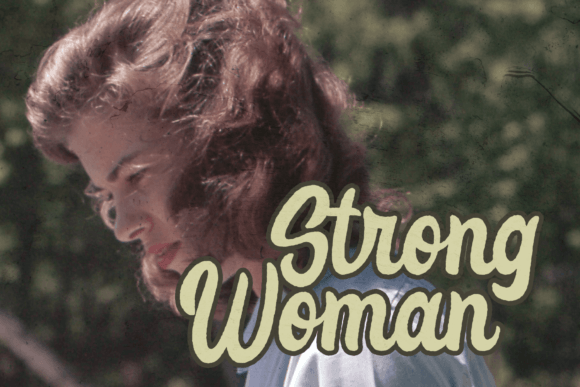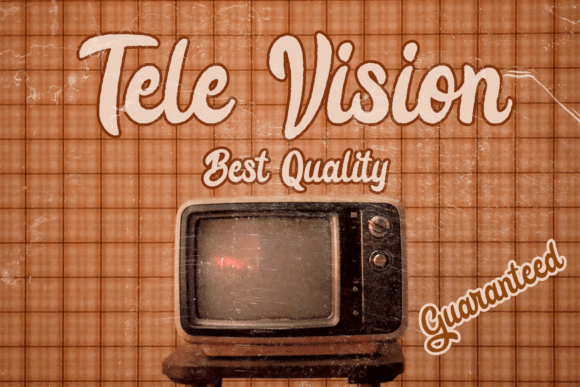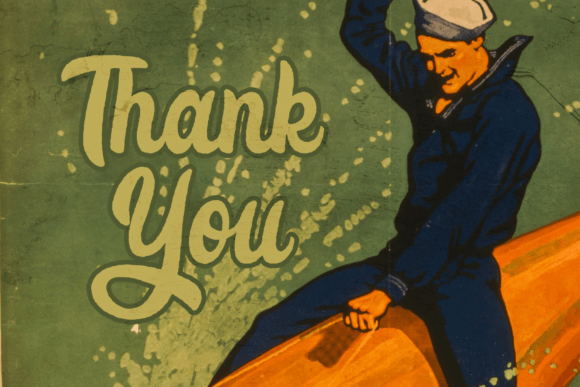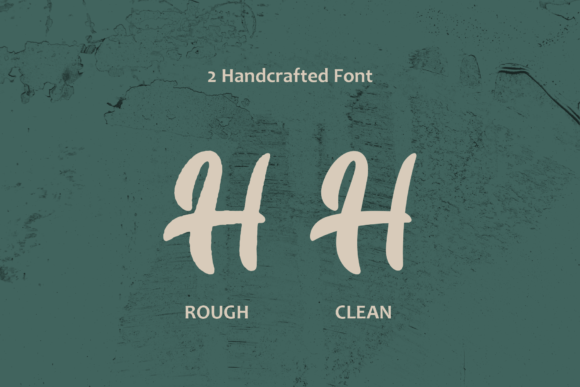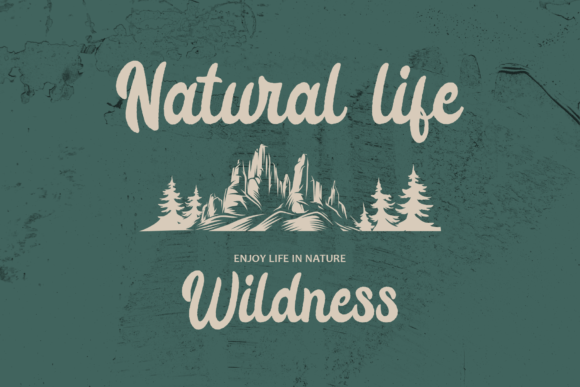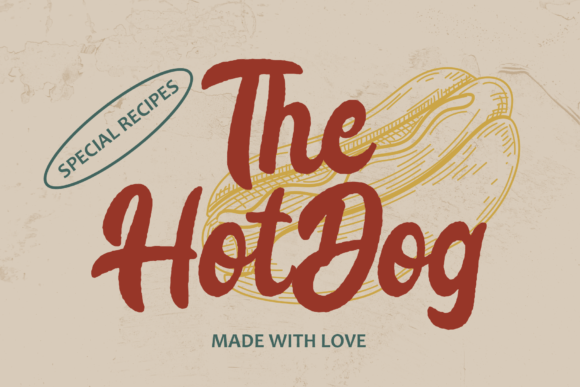
Introduction to Holy Cook Font
Holy Cook is a bold script font with a charming old style.
This also looks interesting because of its interesting alternative features This font is suitable for those who want a design that displays an old-school side but is still relevant for a charming, modern look.